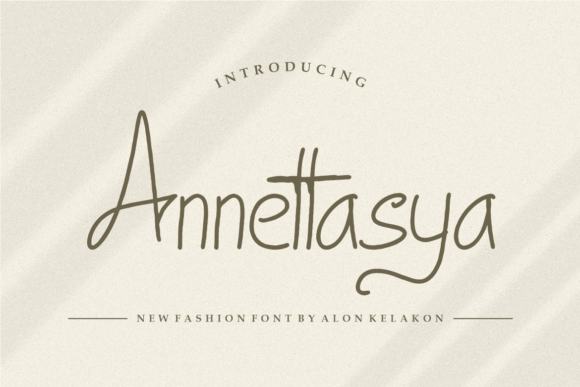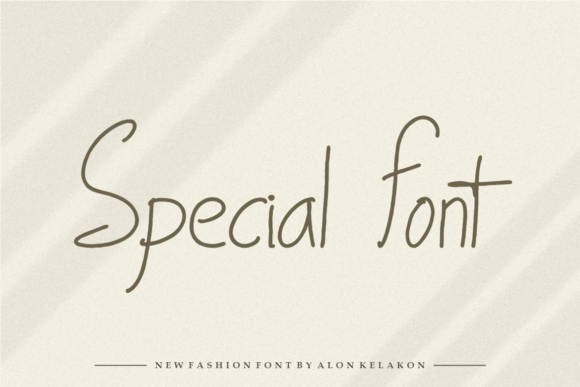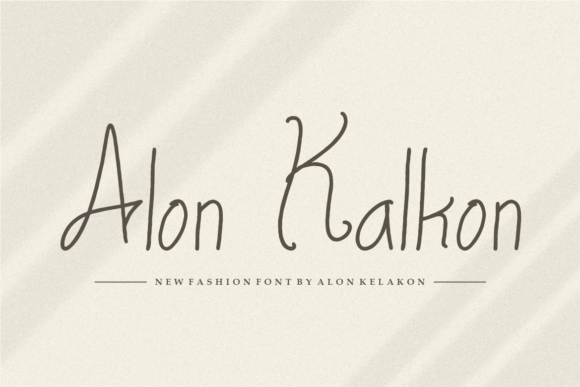
About Annettasya Font
Introducing Annettasya, a playfully handmade font that delivers an incredibly playful and handwritten style. This display font is crafted to add a special and playful touch to any design idea you can think of. Masterfully designed to become a true favorite, Annettasya has the potential to bring each of your creative ideas to the highest level.
The charm of Annettasya lies in its playful and handmade feel, making it a delightful choice for a range of creative projects. The font’s unique design adds a touch of whimsy and personality to your text, creating a visual impact that stands out.
For display purposes, Annettasya becomes a lively and engaging font. Whether used for headlines, posters, banners, or any design that demands attention, this font adds a playful and captivating touch.
In creative projects, Annettasya becomes a valuable tool for injecting a sense of fun and uniqueness. Its handwritten style enhances the personal touch, making your designs stand out with creativity and character.
Annettasya is not just a font; it’s a creative companion that adds a playful flair to your projects. Its potential to become a true favorite lies in its versatility and ability to bring a special touch to a wide range of design ideas.
Whether you’re working on digital designs or physical prints, Annettasya is crafted to make your creative ideas shine. It goes beyond being just a font; it’s a design element that brings joy and playfulness to your projects.
In conclusion, Annettasya is a playfully handmade font that has the power to elevate your creative ideas. Choose Annettasya to infuse your designs with a special and playful touch, creating visually stunning and memorable projects that resonate with your audience.